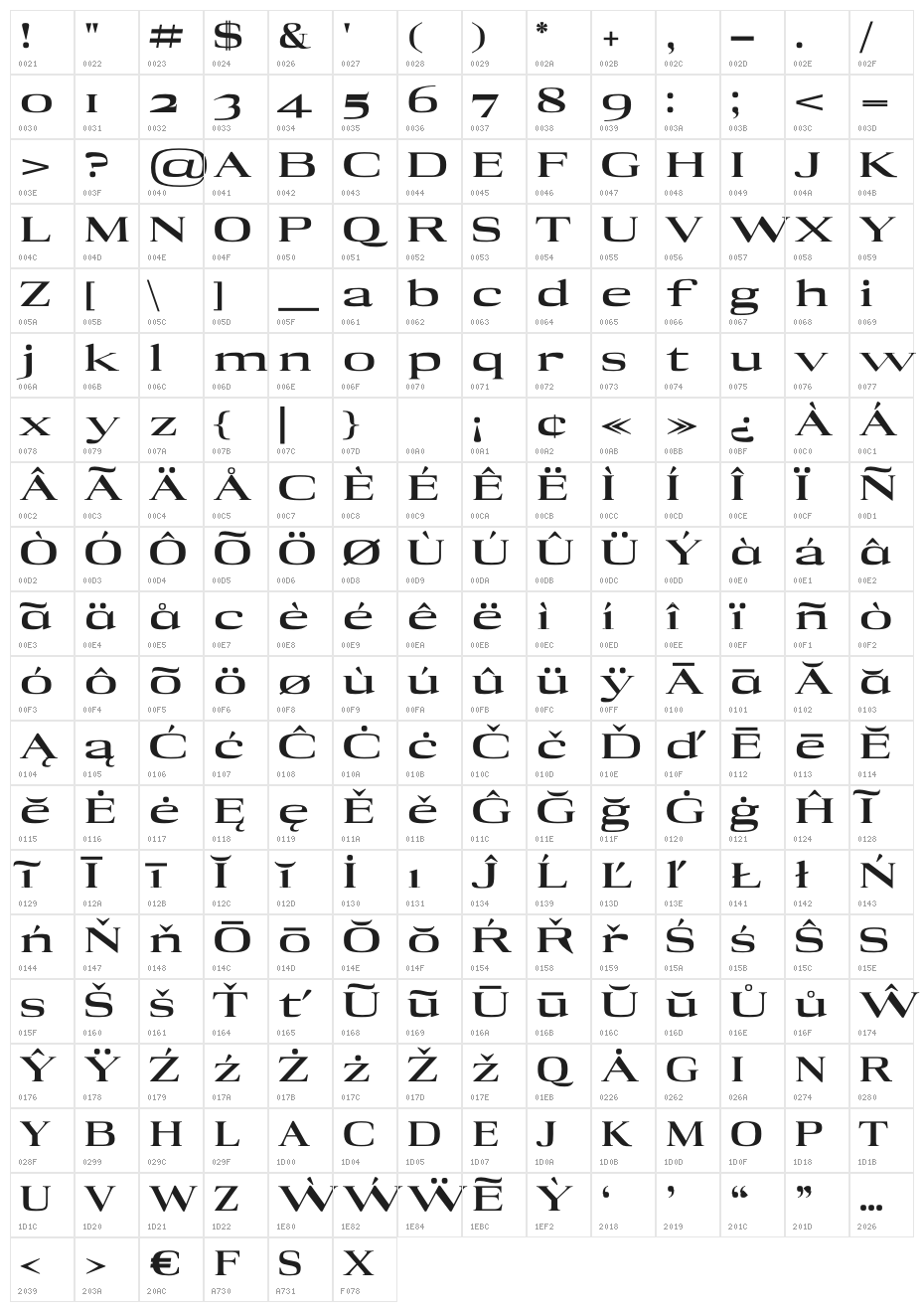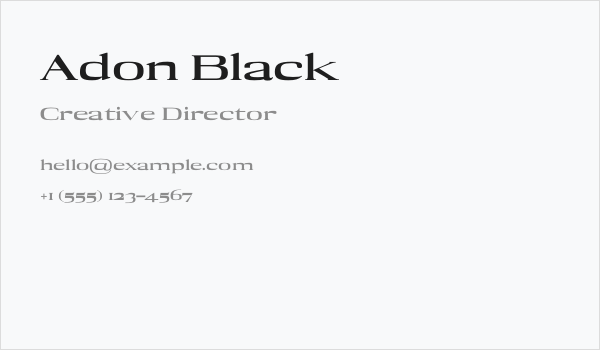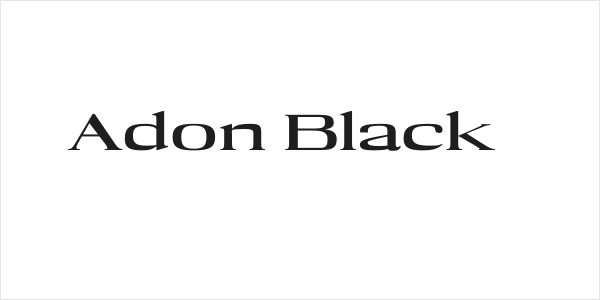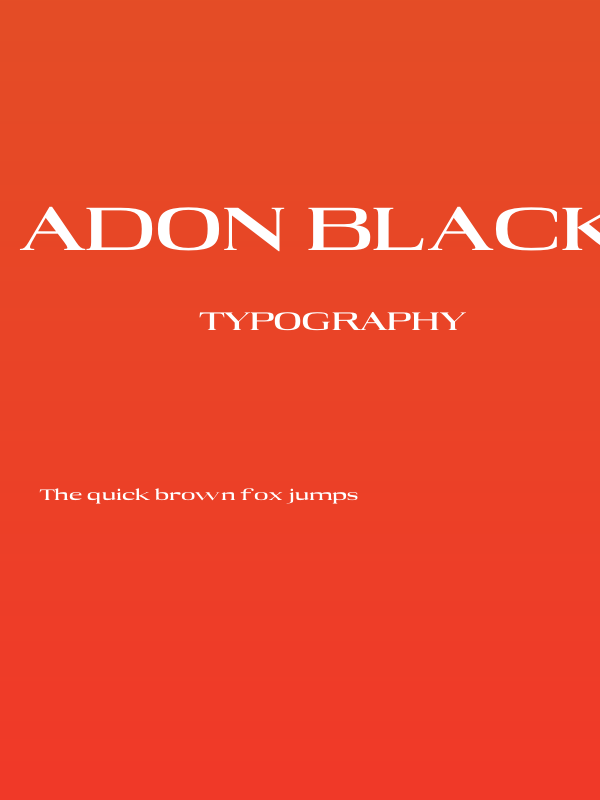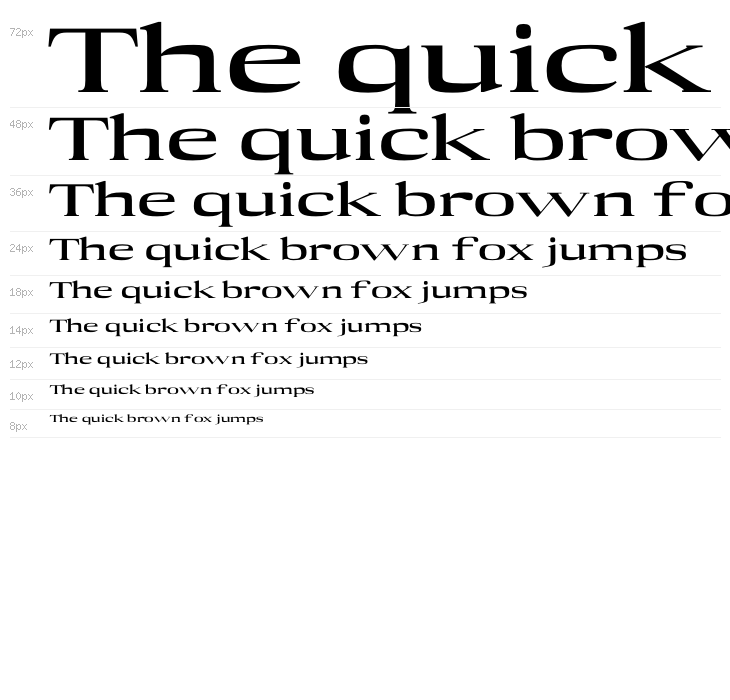
Adon Black Font
Adon Black Description
This font exhibits a bold and dynamic style with a modern twist. The uppercase letters have a strong presence with sharp, angular serifs that give them a distinctive edge. The lowercase letters maintain a consistent flow, balancing the boldness of the uppercase with a slightly softer touch. The numerals are robust and clear, making them highly legible. Special characters are designed with the same attention to detail, ensuring they complement the overall aesthetic. The font's high contrast in stroke thickness adds to its striking appearance, making it ideal for impactful designs.
Proposed ProjectsIdeal for branding, headlines, posters, and any project requiring a strong visual impact.